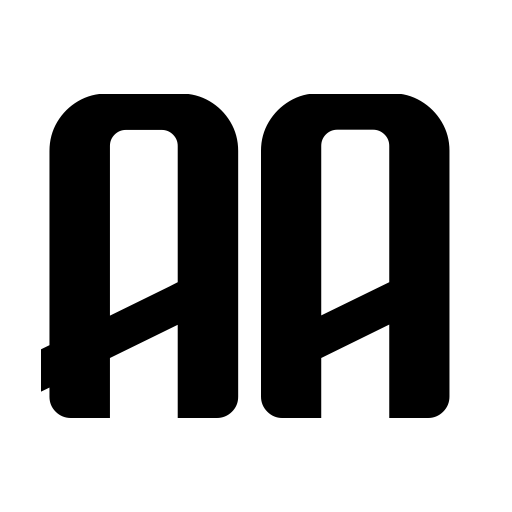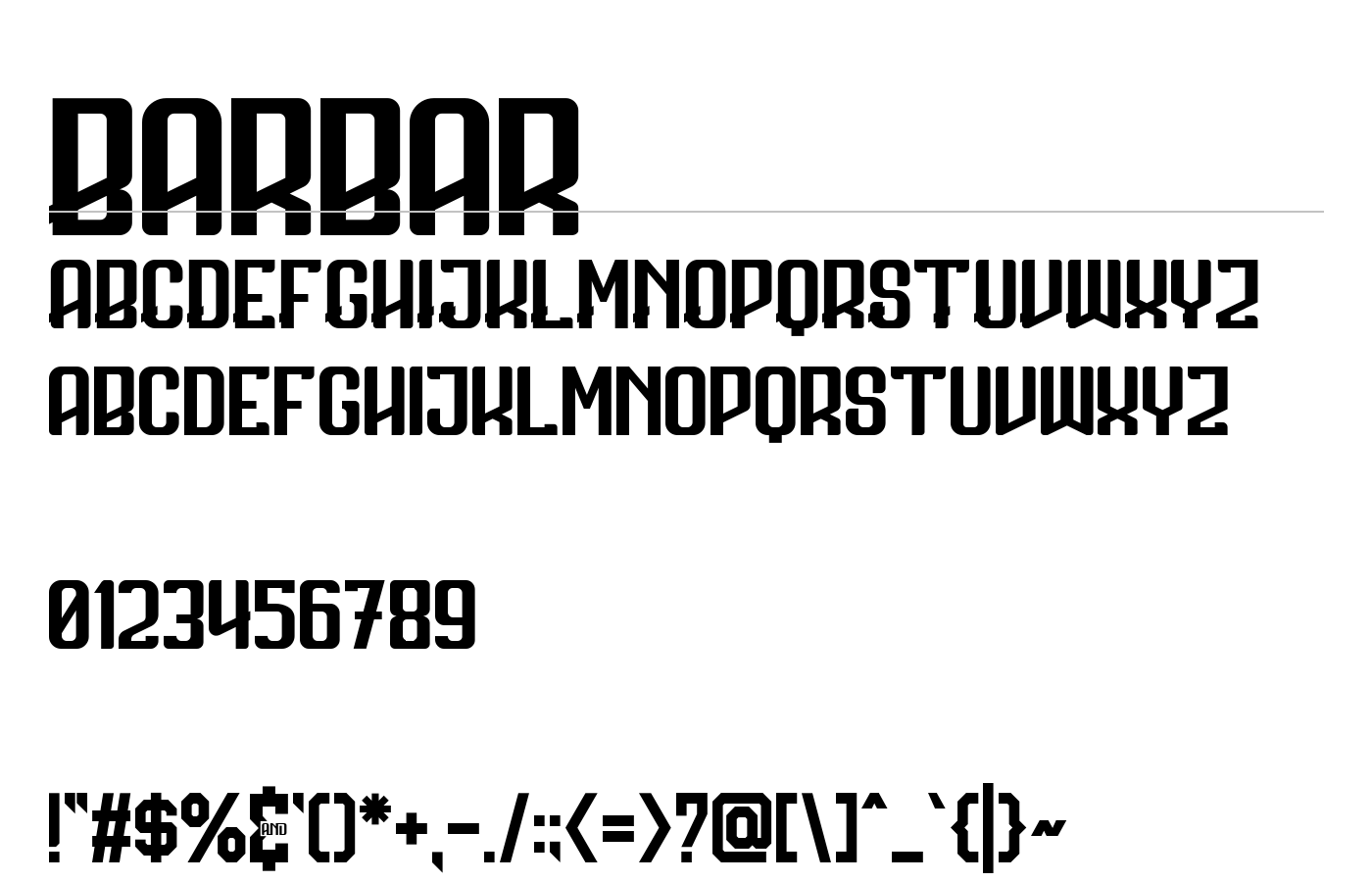
Barbar is a bold, condensed sans serif font with a modern industrial vibe, characterized by its tall, narrow letterforms and sharp geometric edges. Its high stroke contrast and unique diagonal slashes through some characters give it a striking, edgy appearance, making it ideal for impactful headlines, logos, and branding that demand attention. This font works well in contexts needing a strong, contemporary, and assertive personality.
Barbar Font
About Barbar Font
| Font family | Barbar Font |